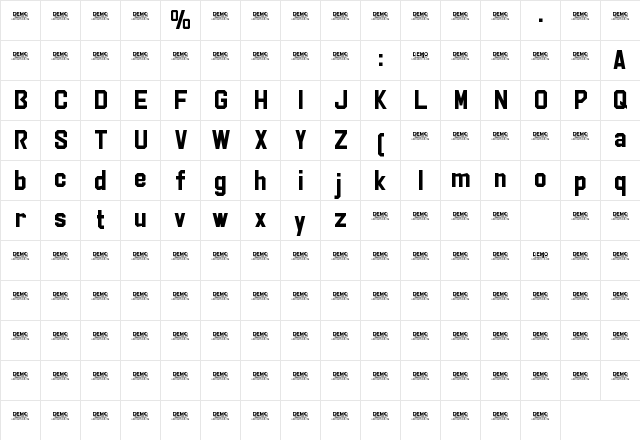
Striker Eureka PERSONAL USE Regular
| Foundry | LJ Design Studios |
| Designer | Luis Jaramillo |
Design Context for Striker Eureka PERSONAL USE Typeface
Striker Eureka PERSONAL USE offers clean, dependable letterforms without strong stylistic allegiance, making it a practical choice for designers who need flexibility.